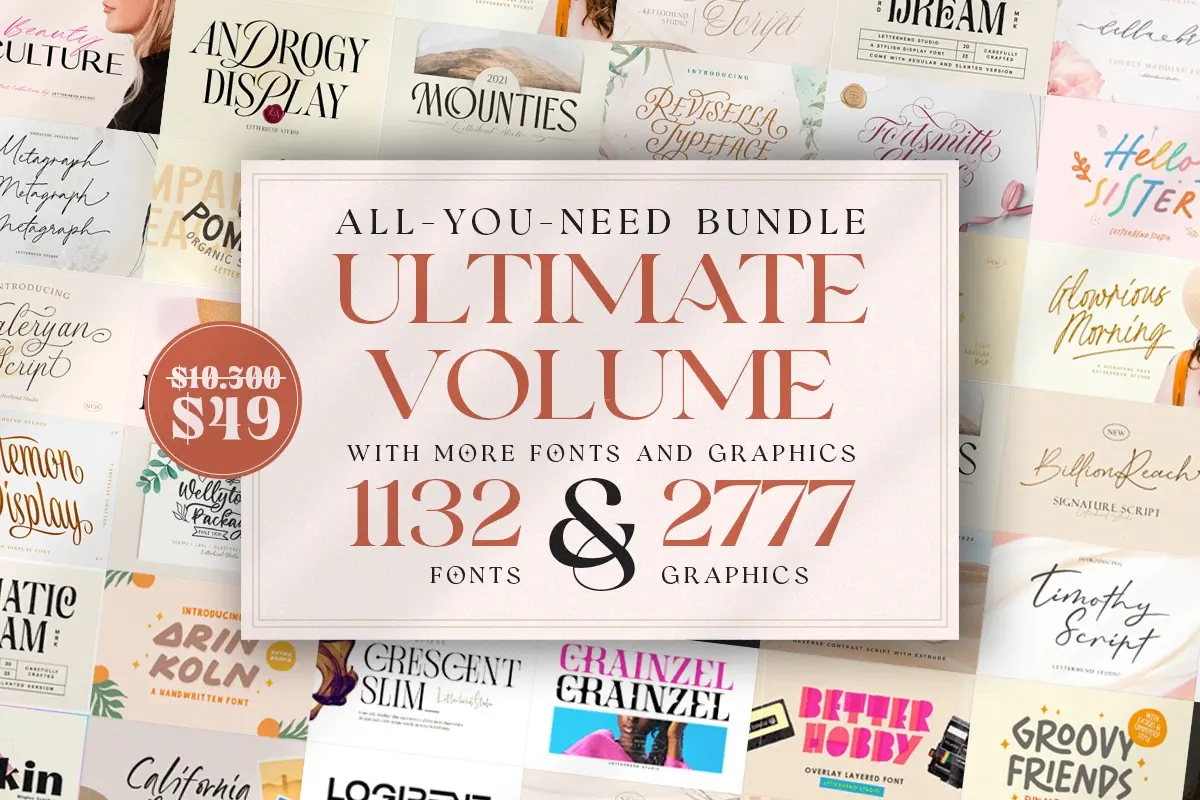
ALL-YOU-NEED-BUNDLE ULTIMATE VOLUME Font Free Download is an expansive and versatile font bundle featuring a wide range of styles, perfect for any design project. With numerous fonts included, from elegant scripts to bold display fonts, this bundle is ideal for creating logos, branding, posters, websites, invitations, and much more. Whether you’re working on a modern brand, a creative campaign, or a vintage-inspired design, ALL-YOU-NEED-BUNDLE ULTIMATE VOLUME Font Free Download provides endless possibilities. Experiment with the fonts in personal projects before purchasing a commercial license and elevate your designs with this comprehensive and beautifully crafted font bundle.